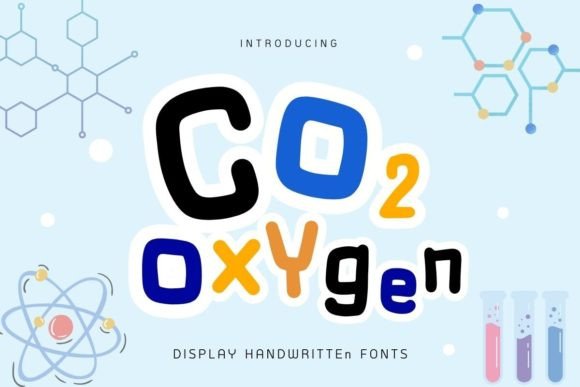
Co2 Oxygen: A Groovy Display Font for Science and Fun
Imagine a typeface that instantly transports your viewer to a retro laboratory mixed with a summer carnival. That is the unique charm of Co2 Oxygen. In the vast landscape of digital typography, finding a font that balances thematic specificity with broad creative utility can be challenging. This particular display font manages to carve out a distinct niche by merging scientific motifs with an undeniably cute and groovy aesthetic. It is not just a collection of letters; it is a design asset that brings personality to projects ranging from educational materials for children to trendy apparel for adults.
When you first encounter Co2 Oxygen, the visual characteristics are immediately striking. The letterforms possess a bubbly, rounded quality that feels approachable and friendly, yet they are constructed with a structural integrity that ensures legibility. Unlike a standard sans serif font which might feel too corporate or sterile, this typeface injects a sense of playfulness into every word. The "science theme" mentioned in its description isn't limited to literal icons; rather, it permeates the vibe of the characters themselves. They feel like elements from a periodic table designed for a fun classroom or a quirky sticker pack. This makes it an exceptional choice for designers looking to break away from the rigid norms of modern typography without sacrificing clarity.
Where This Creative Font Shines in Real Projects
The versatility of Co2 Oxygen extends far beyond simple headings. Because it carries such a specific yet adaptable personality, it serves as a powerful tool in various sectors of design and marketing. For entrepreneurs and small business owners in the crafting industry, this font is a goldmine. Imagine creating sublimation designs for t-shirts intended for a summer camp or a science-themed birthday party. The groovy vibes align perfectly with current trends in nostalgic, 70s-inspired fashion, allowing brands to tap into a market that values uniqueness and humor.
In the realm of brand identity, consistency is key. If you are launching a product line focused on kids' education, eco-friendly initiatives, or playful lifestyle goods, Co2 Oxygen can become the cornerstone of your visual language. It works exceptionally well on packaging design where shelf appeal is critical. A jar of homemade slime, a box of organic gardening tools, or a set of colorful markers can all benefit from the adorable nature of this typeface. It signals to the consumer that the product inside is fun, safe, and engaging.
Digital applications are equally promising. For content creators and social media managers, standing out in a crowded feed requires eye-catching graphics. Using Co2 Oxygen for Instagram stories, YouTube thumbnails, or Pinterest pins can significantly boost audience engagement. Its bold presence grabs attention quickly, making it ideal for announcing events, sharing fun facts, or promoting seasonal sales. Furthermore, in web design, while it may not be suitable for long body copy due to its decorative nature, it excels as a hero font for landing pages that need to establish a mood within seconds of loading.
Enhancing Brand Perception and Visual Hierarchy
Selecting the right typeface is one of the most impactful decisions a designer can make. The font you choose influences how your audience perceives your brand's professionalism, reliability, and creativity. Co2 Oxygen leans heavily into the "friendly expert" archetype. It suggests that while the subject matter might be serious (like science or education), the approach is accessible and enjoyable. This can lower barriers for audiences who might otherwise feel intimidated by complex topics.
From a technical standpoint, this premium font aids in establishing a clear visual hierarchy. When paired with a clean, neutral serif font or a simple geometric sans serif for body text, Co2 Oxygen naturally draws the eye to headlines and calls to action. This contrast ensures that the most important information is consumed first, guiding the user through the content logically. However, readability considerations are paramount. Because of its decorative style, it should be used at sizes large enough to appreciate the details of the letterforms. Cramping it into small captions can reduce legibility and diminish its overall impact.
Consistency across touchpoints reinforces recognition. If a customer sees Co2 Oxygen on a birthday invitation, then again on a website banner, and finally on a physical sticker included in their order, the brain begins to associate that specific typographic style with your brand. This repetition builds trust and familiarity, which are essential components of a strong brand strategy.
Practical Guidance for Implementation and Pairing
Integrating Co2 Oxygen into your workflow requires a thoughtful approach to ensure it enhances rather than overwhelms your design. Here are some practical recommendations for getting the most out of this typeface:
- Evaluate Project Fit: Before committing, ask if the "groovy and fun" vibe matches your message. It is perfect for summer designs, kids' content, and casual branding, but might be inappropriate for formal legal documents or high-end luxury goods that require understated elegance.
- Master Font Pairing: Since Co2 Oxygen is a display font with significant character, pair it with something subdued. A light weight script font can add a touch of elegance for invitations, while a standard handwritten font can amplify the casual, DIY feel for crafting projects. Avoid pairing it with other highly decorative fonts to prevent visual clutter.
- Test Readability: Always preview your text in the actual medium it will be displayed. What looks great on a high-resolution monitor might lose definition when printed on textured paper or viewed on a mobile device. Ensure there is sufficient kerning and leading to let the bubbles and curves breathe.
Ultimately, Co2 Oxygen represents more than just a set of glyphs; it is a tool for storytelling. It allows designers, hobbyists, and professionals to infuse their work with a specific emotional resonance—one of curiosity, joy, and exploration. By understanding its strengths and limitations, you can leverage this adorable font to create memorable experiences that resonate with your audience, whether they are children learning about atoms or adults shopping for unique summer gear. The key lies in balancing its exuberant style with disciplined design practices, ensuring that the final output is not only cute but also effective and professional.